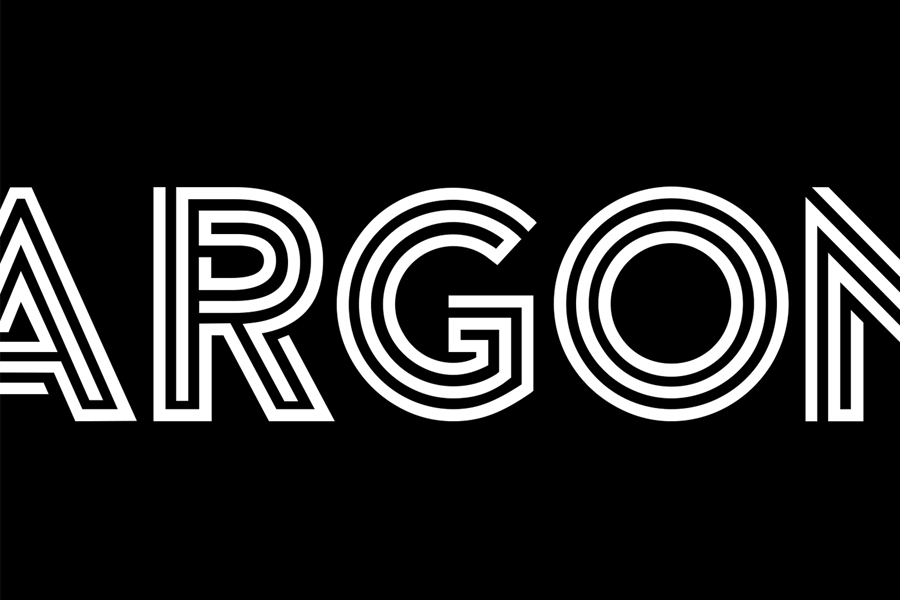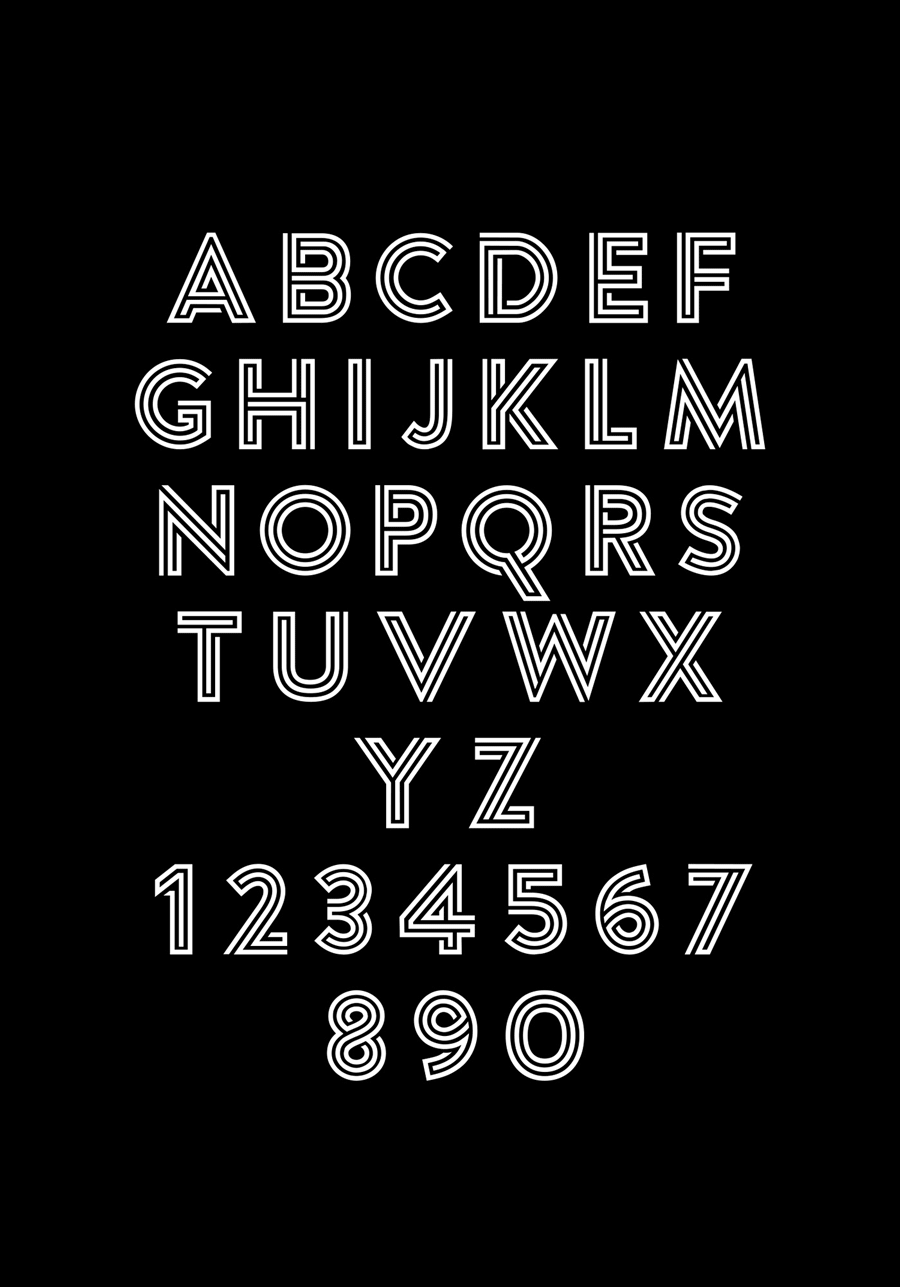
Argon is a classy display typeface that was constructed with lines that formed maze-like structures. This font some how reminds me of the logotype that was used in Mexico Olympic back in 1968. The free version comes only with alphabets, you need to buy full version to unlock all characters.